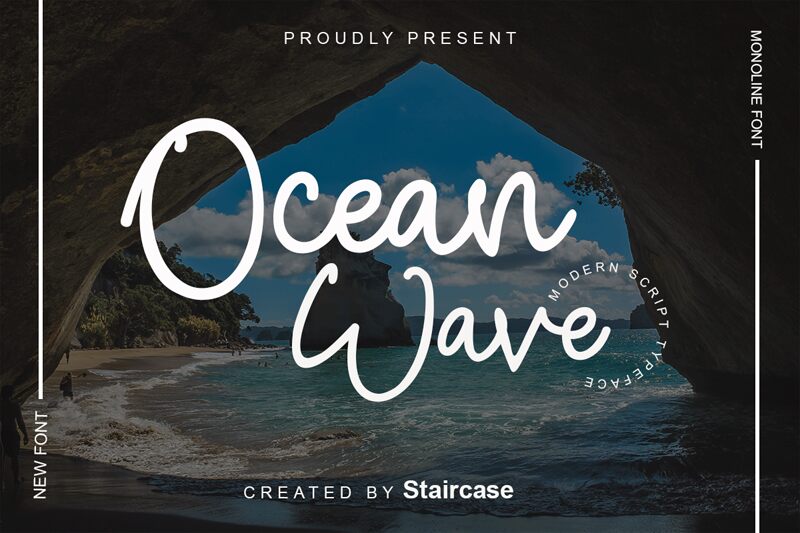
Ocean Wave
Ocean Wave is a stunning handwritten font by Staircase Studio. Its semi-light weight and sweeping curves make it perfect for a variety of creative projects. Imagine using Ocean Wave for wedding invitations, social media graphics, or even blog post titles. This font adds a touch of whimsy and elegance to any project it’s used in. The fluidity of this typeface brings to mind the organic movement of ocean waves, making it ideal for designs that need some movement or flow. Upgrade your design game with the charming Ocean Wave font and watch your projects come to life!